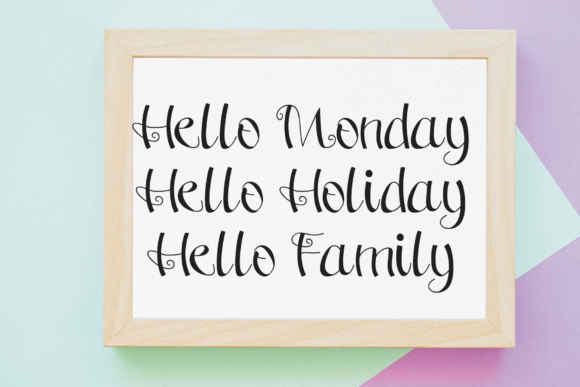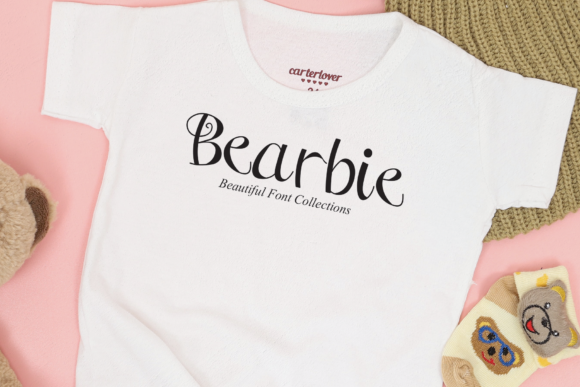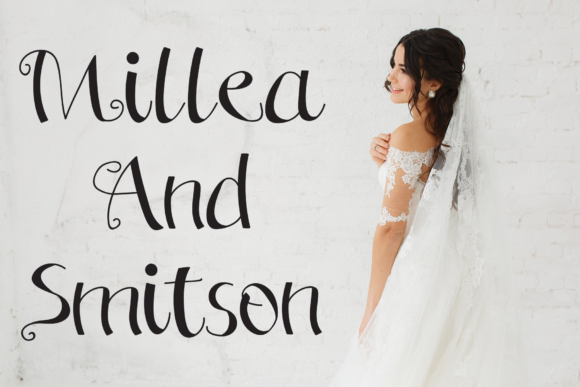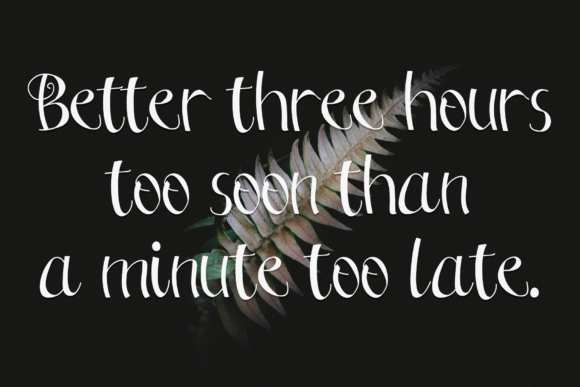
Unlock the Charm of Your Designs with the Kitchen Herbs Font
Remember that moment when you stumbled upon a quaint little café, and the aroma of freshly baked cookies and herbs filled the air? The delicate scents and elegant atmosphere instantly sparked your creativity, inspiring you to craft something beautiful. As a designer, you’re always on the lookout for the perfect font to capture the essence of your vision. That’s where the Kitchen Herbs Font comes in – a delightful handwritten font that’s sure to add a touch of whimsy and charm to your designs.
This elegant font features sweet and delicate swashes, making it perfect for a wide range of crafty ideas, from letterheads and titles to stationery. The Kitchen Herbs Font is a valuable addition to any designer’s toolkit, offering a unique and versatile look that’s sure to appeal to a variety of creative projects.
Kitchen Herbs Font Key Features
- Font Family: A unique, hand-drawn font family that resembles traditional kitchen herbs, with 12 individual fonts.
- Unique Characteristics: Each font has a unique, hand-drawn feel, with subtle imperfections that give it a charming, organic look.
Kitchen Herbs Font Review
First, let’s talk about what works well with this font. ✨ I love the playful, hand-drawn feel of the characters. The subtle imperfections add a lot of character and make the font feel more organic and natural. The bold weight is also a nice touch, adding depth and visual interest to headings and titles. The font also does a great job of conveying a sense of freshness and vitality, perfect for branding for a health food store or a cooking blog.
What’s Not So Great
Now, let’s talk about the limitations of the font. ⚠️ One thing that stood out to me is the lack of consistency in the font’s design. Some characters feel a bit rough around the edges, while others are smoother. This inconsistency can make the font feel a bit uneven and unpolished. Additionally, the font may not be the best choice for long blocks of text, as the irregularities in the characters can make it harder to read.
Overall, I think the Kitchen Herbs Font is a great choice for short text passages or headings, but may not be the best choice for large bodies of text. With a bit of editing and refinement, I think this font has a lot of potential and could be a real winner.
Design Considerations
- Use the font sparingly to avoid overwhelming the reader
- Pair the font with a clean, simple sans-serif font for body text
- Use the bold weight for headings and titles to add depth and visual interest
The Kitchen Herbs font is perfect for:
- Cookbooks and recipe designs.
- Food blogs and websites.
- Restaurant and cafe branding.